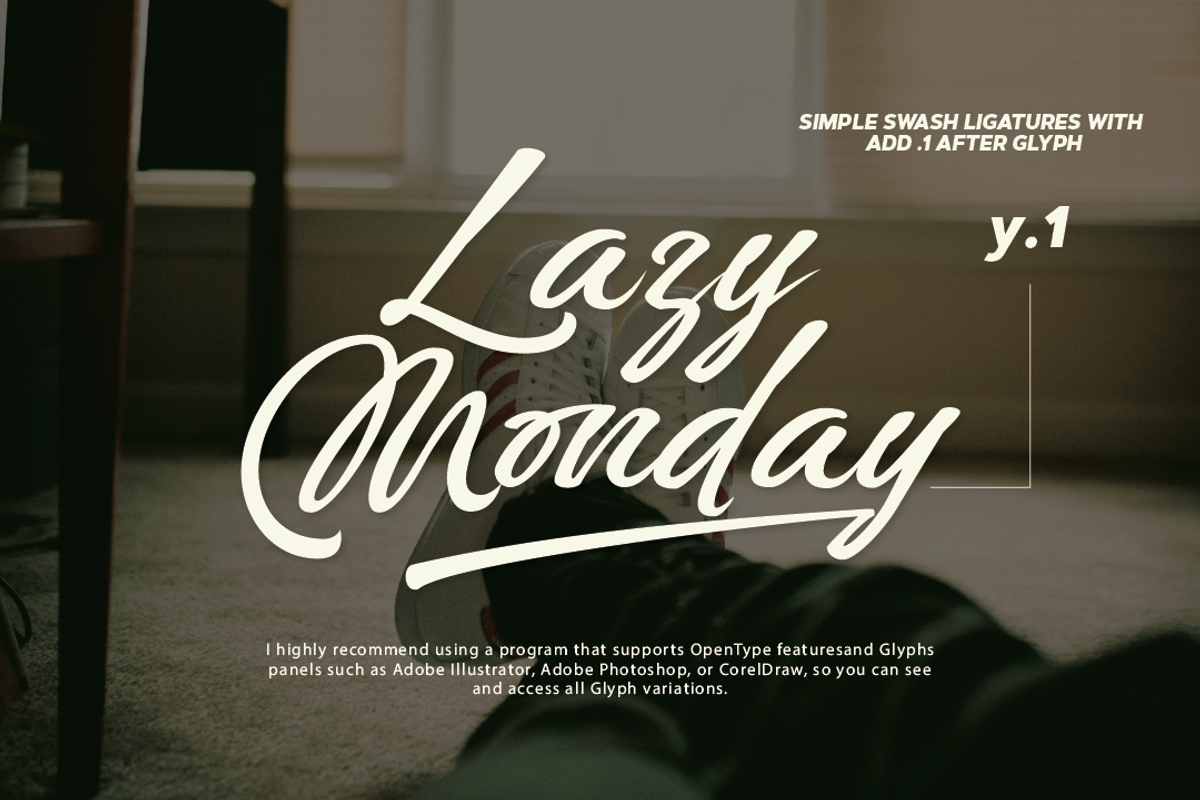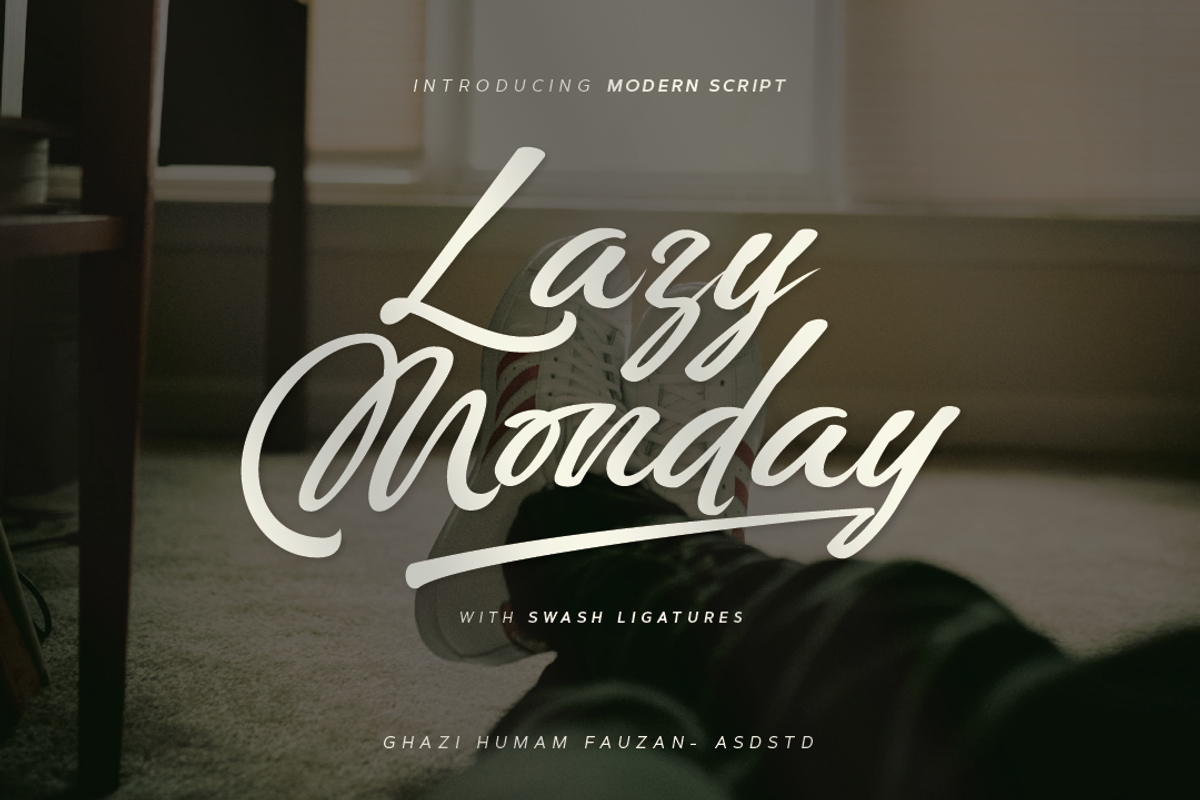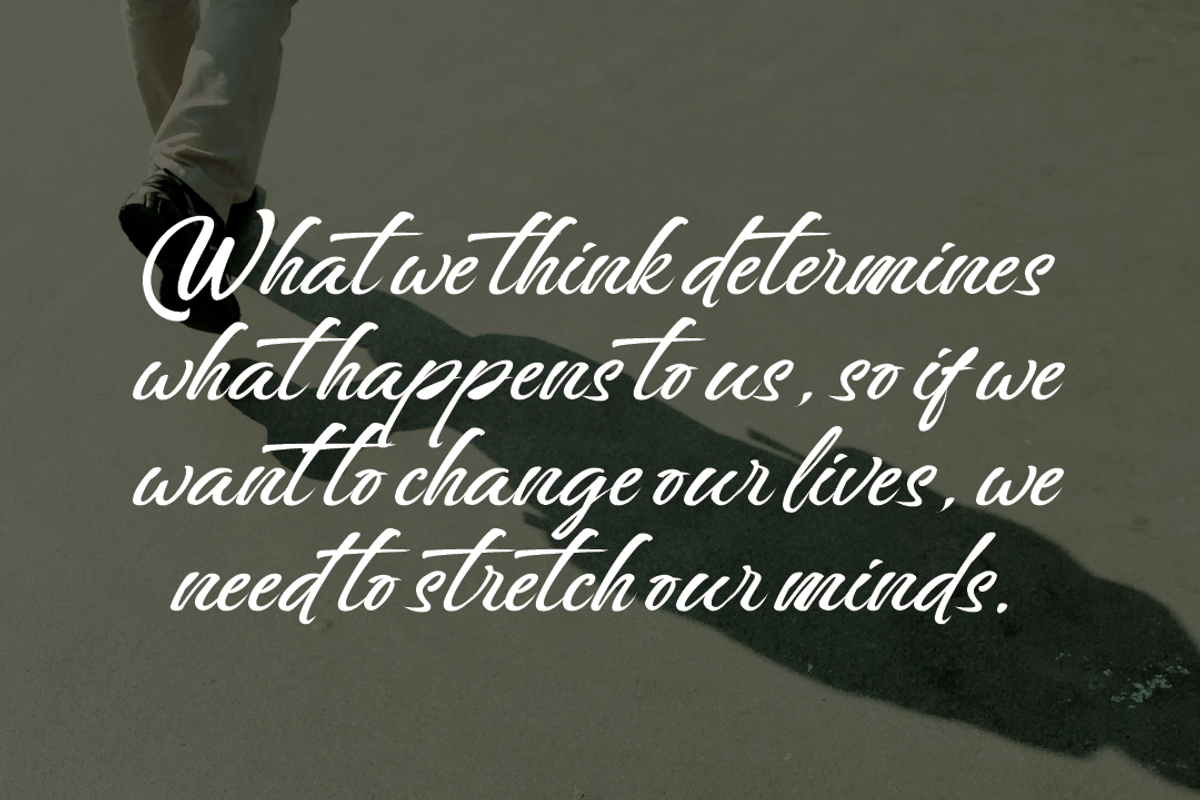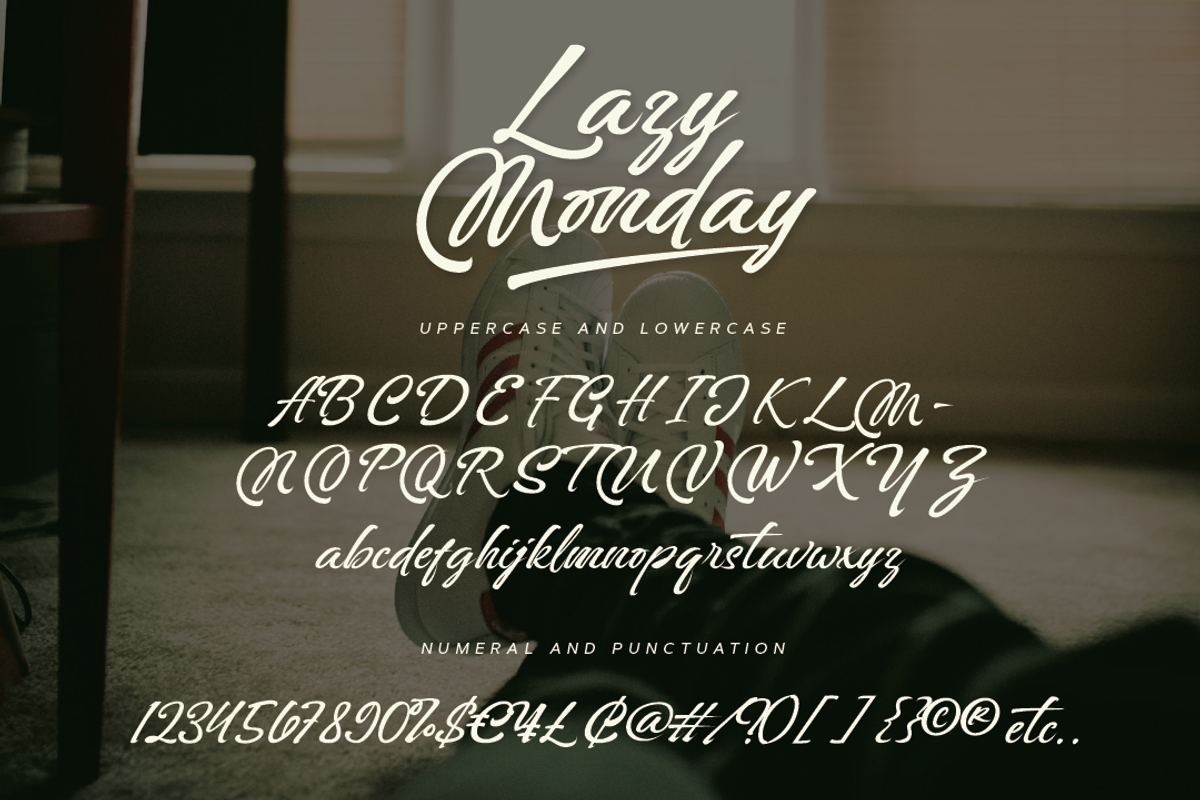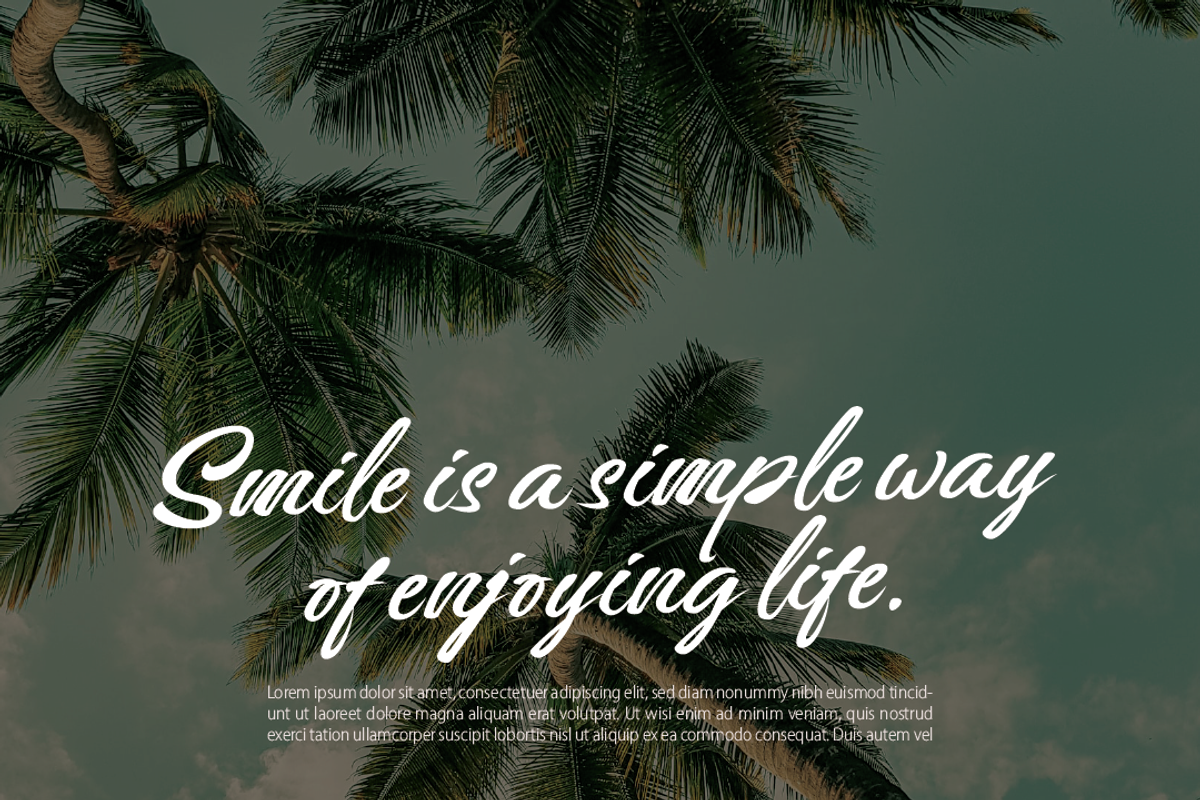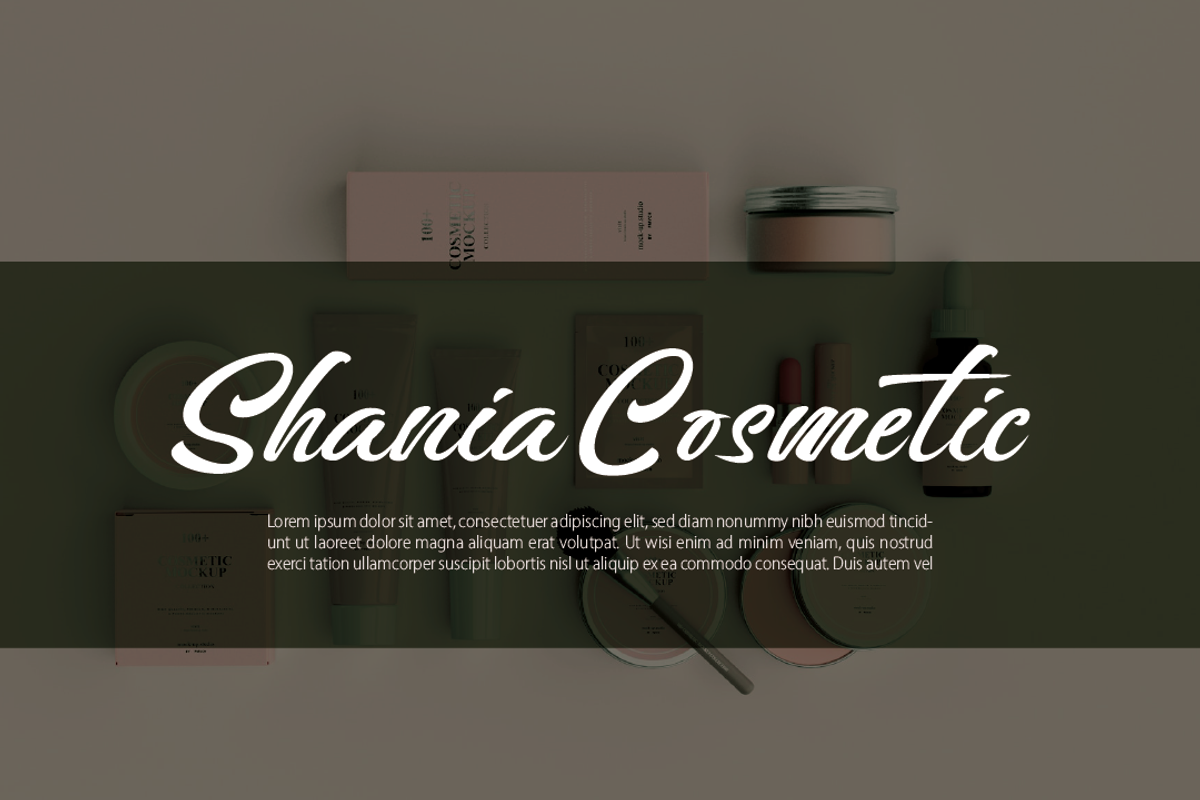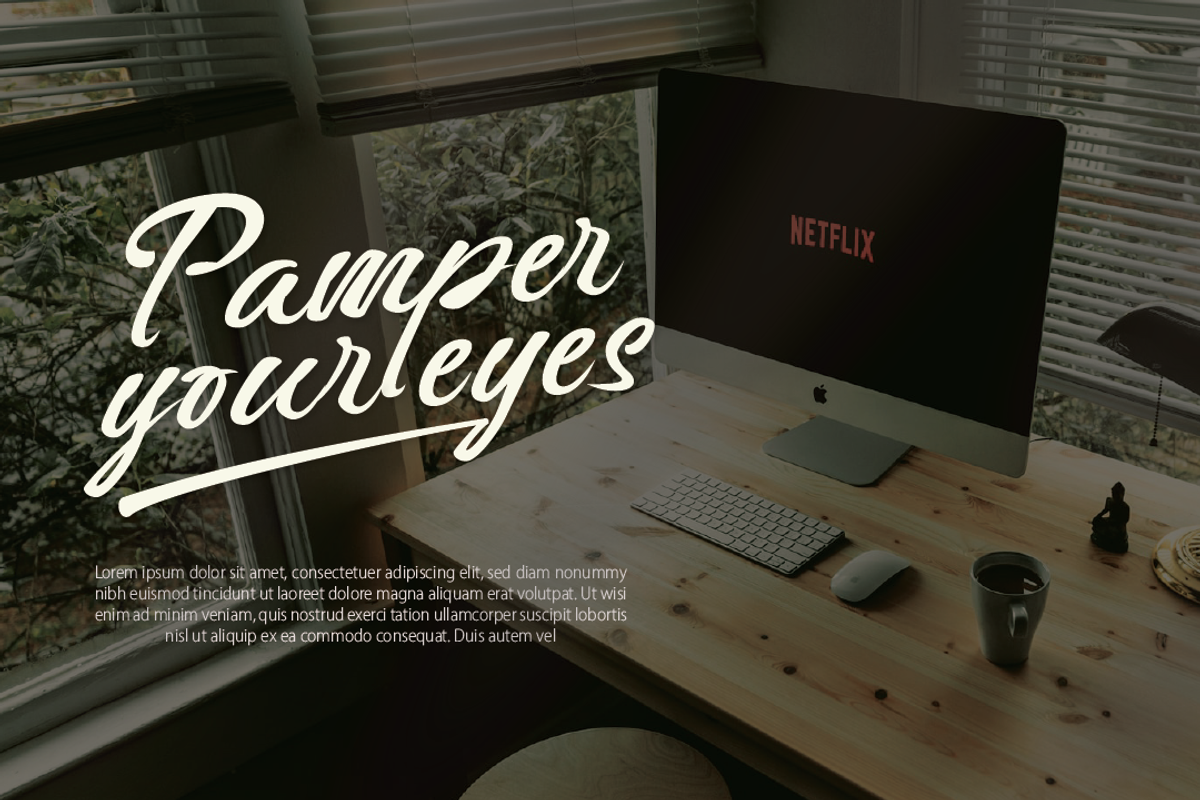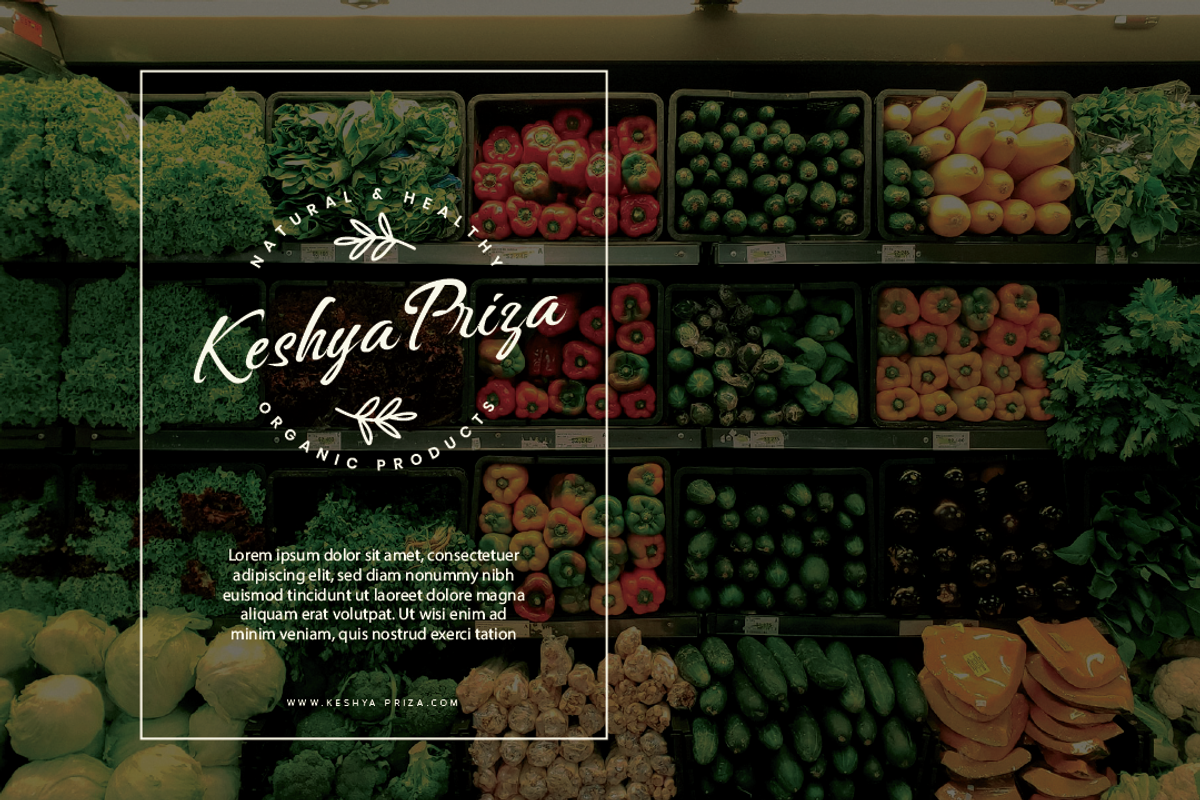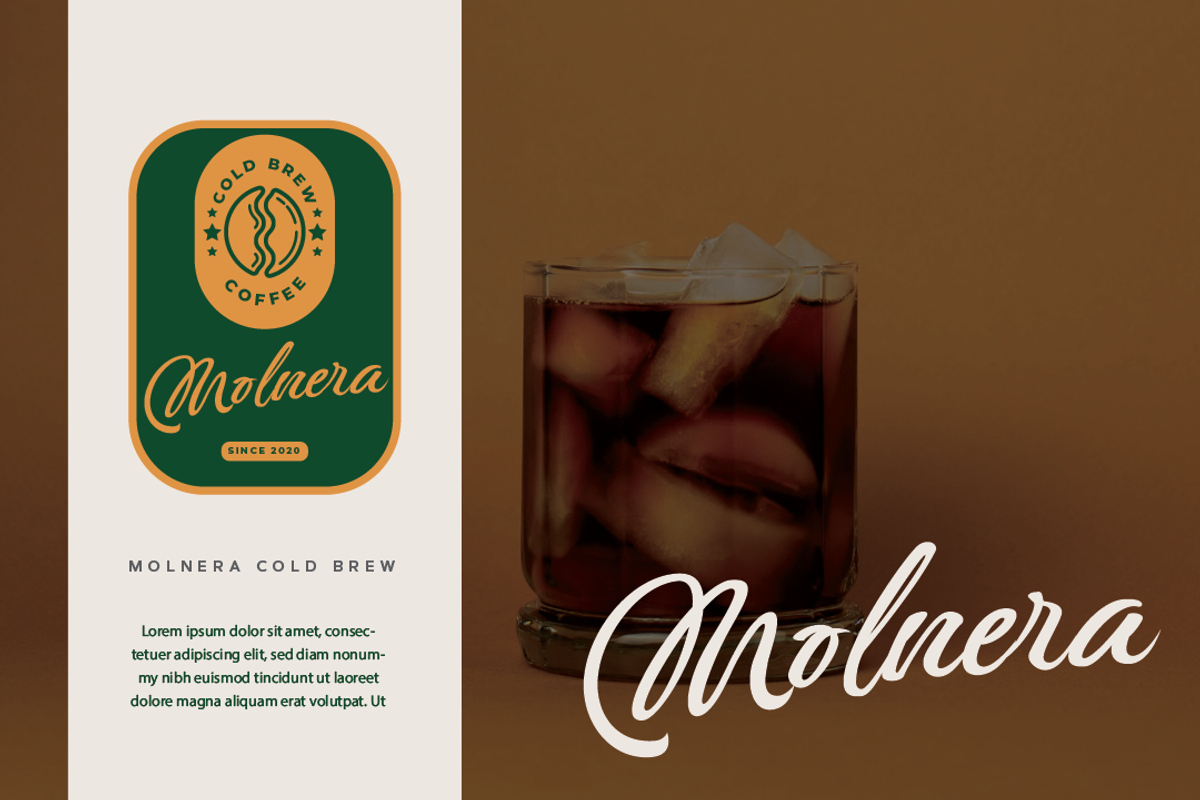
Lazy Monday - Modern Script
Introducing the new font Lazy Monday - Modern Script. This font suitable for use in a variety of design fields, such as event advertisements, product promotions, mug design, book titles, activity titles, logos, and others. This font can when paired with serif font types will make your design project more beautiful and perfect. Features:
- Number & punctuations
- Multilingual Accents